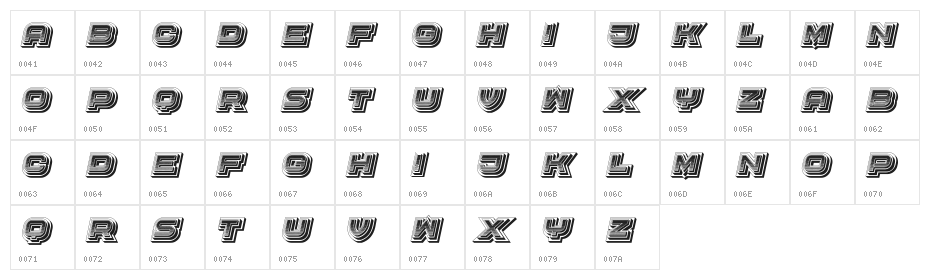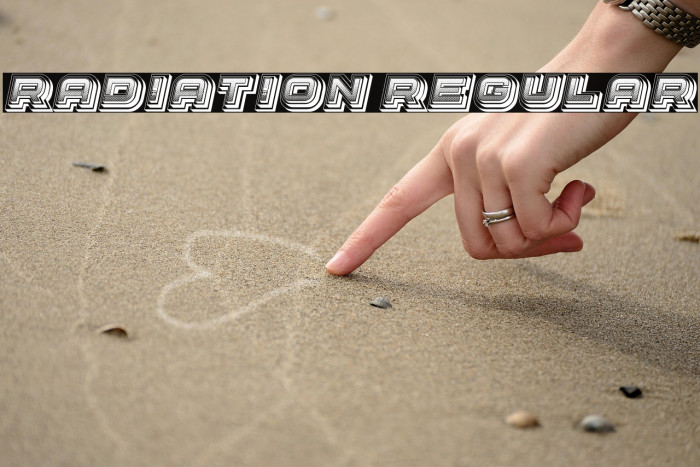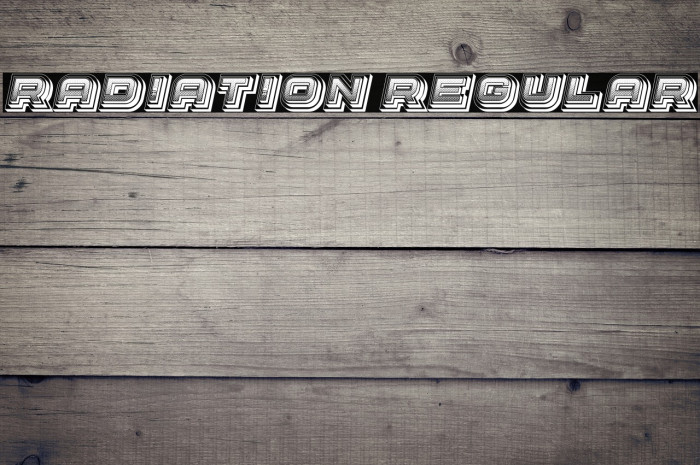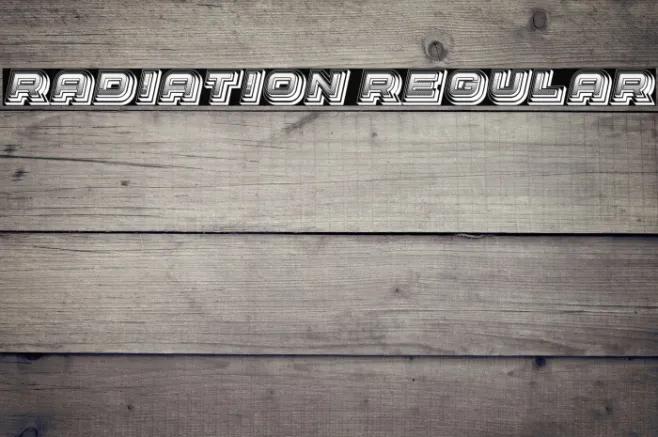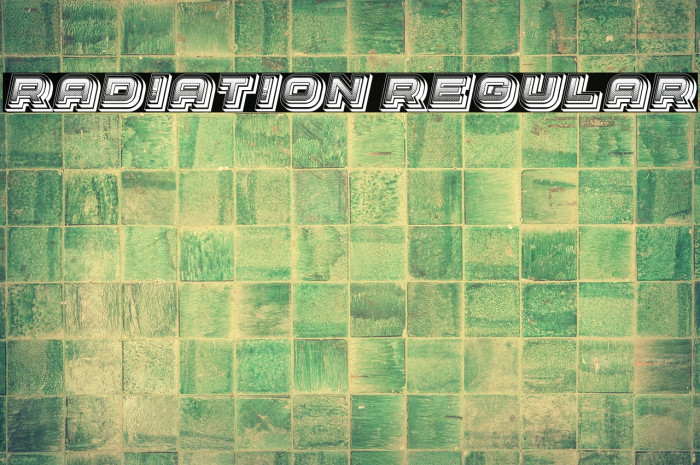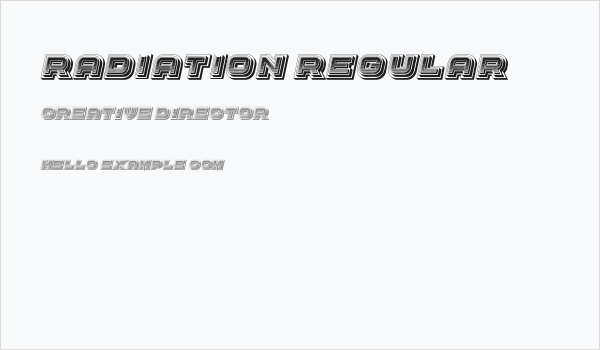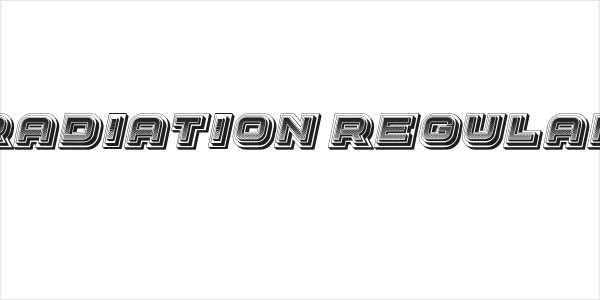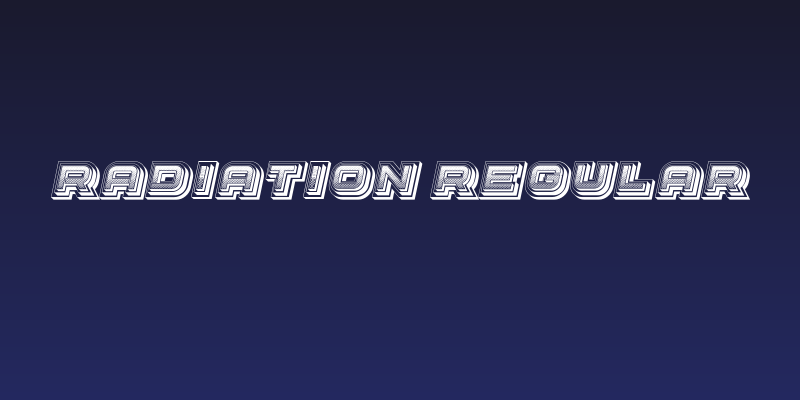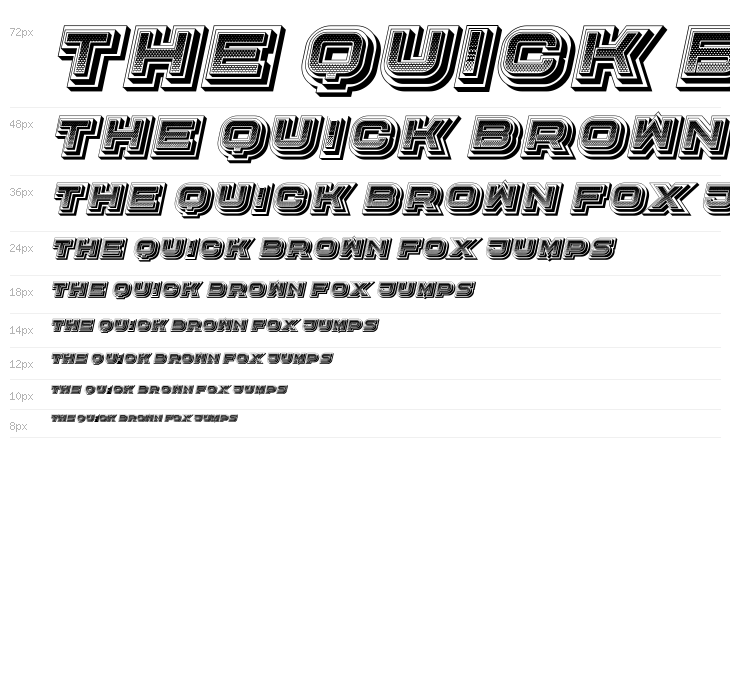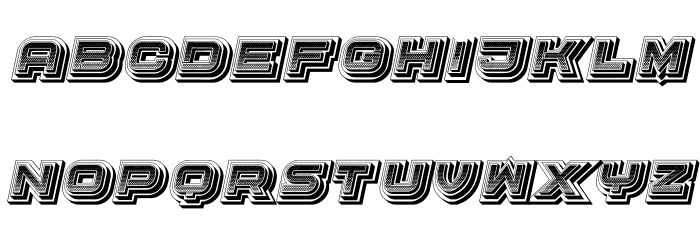
Radiation Regular Font
Radiation Regular Description
This font features a bold, layered design with a distinct 3D effect, created by multiple overlapping lines. The characters are uppercase and exhibit a strong, geometric structure, making them highly legible and impactful. The style is reminiscent of retro or vintage aesthetics, often seen in signage or posters from the mid-20th century. The intricate line work adds depth and dimension, giving the font a unique and eye-catching appearance. It is well-suited for use in designs that require a bold statement or a touch of nostalgia.
| Proposed Projects | Ideal for vintage-themed posters, retro branding, signage, and eye-catching headlines. |